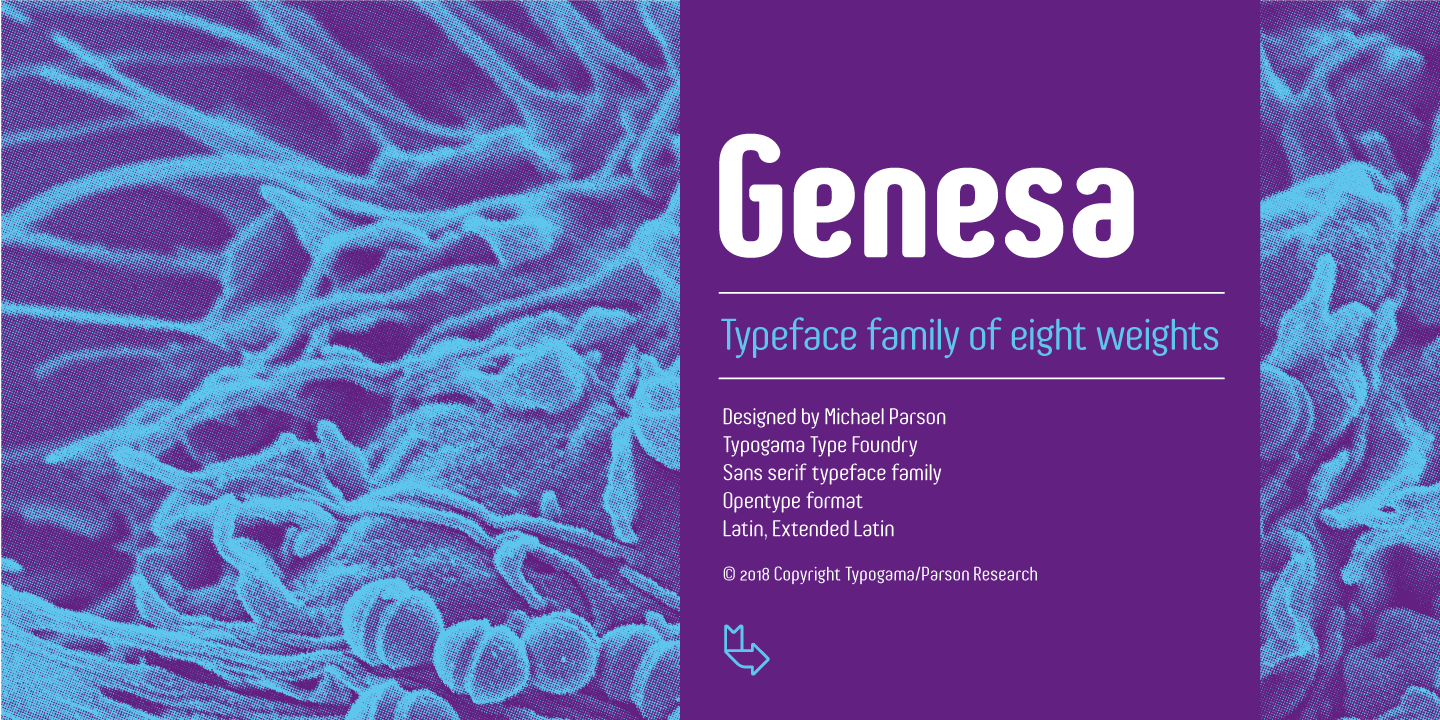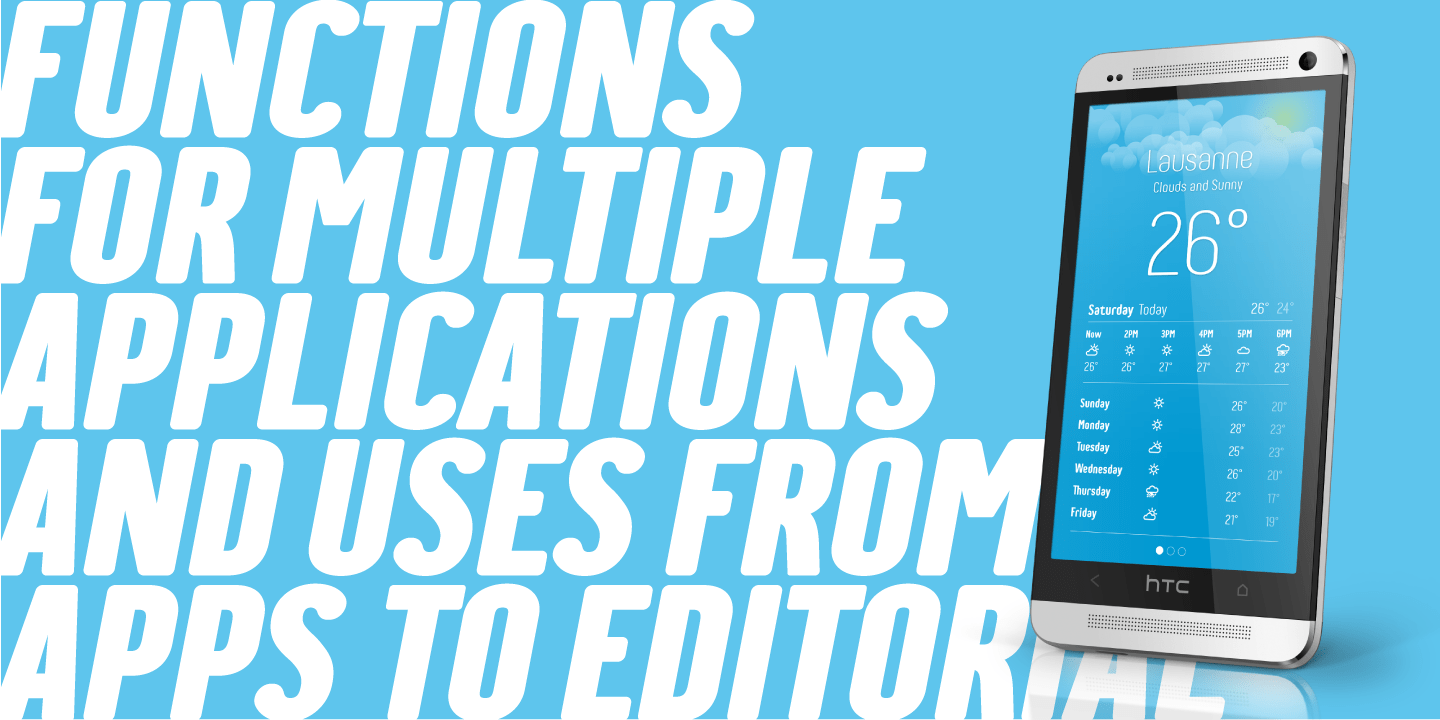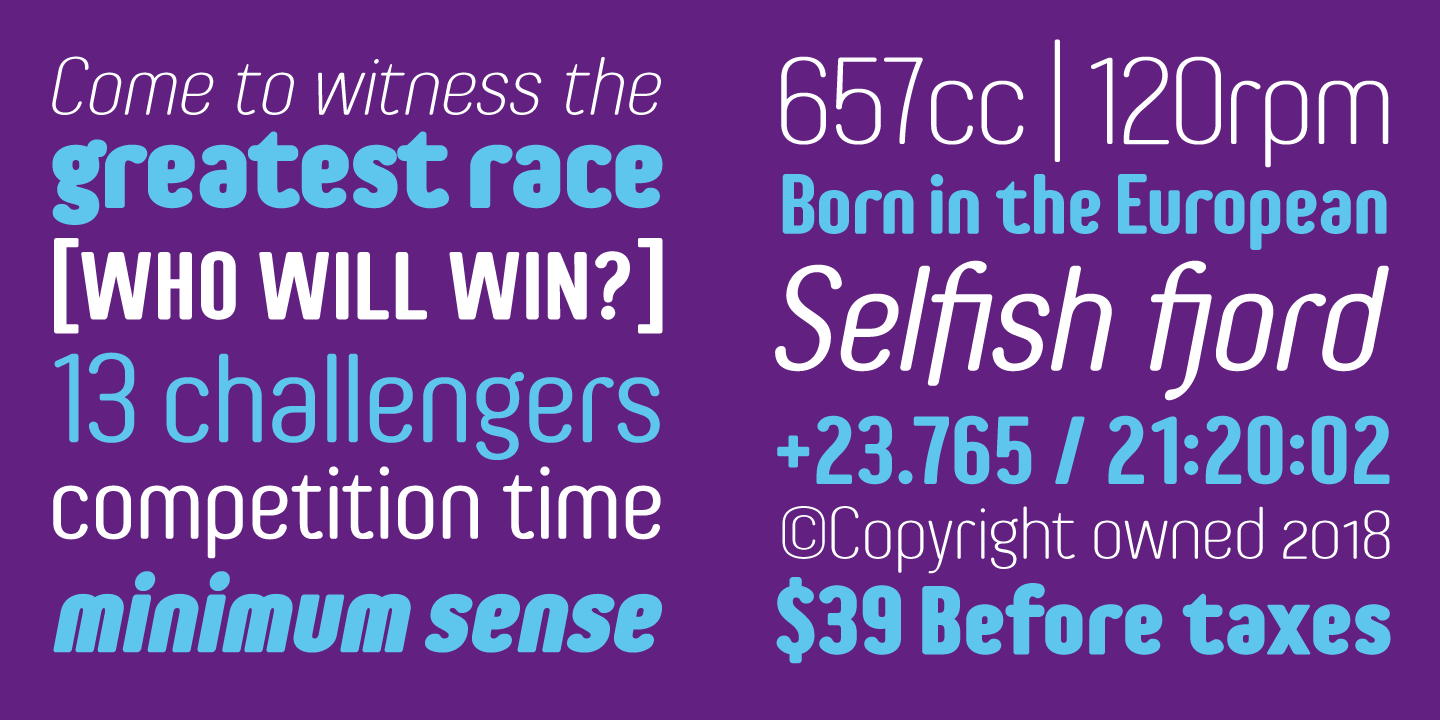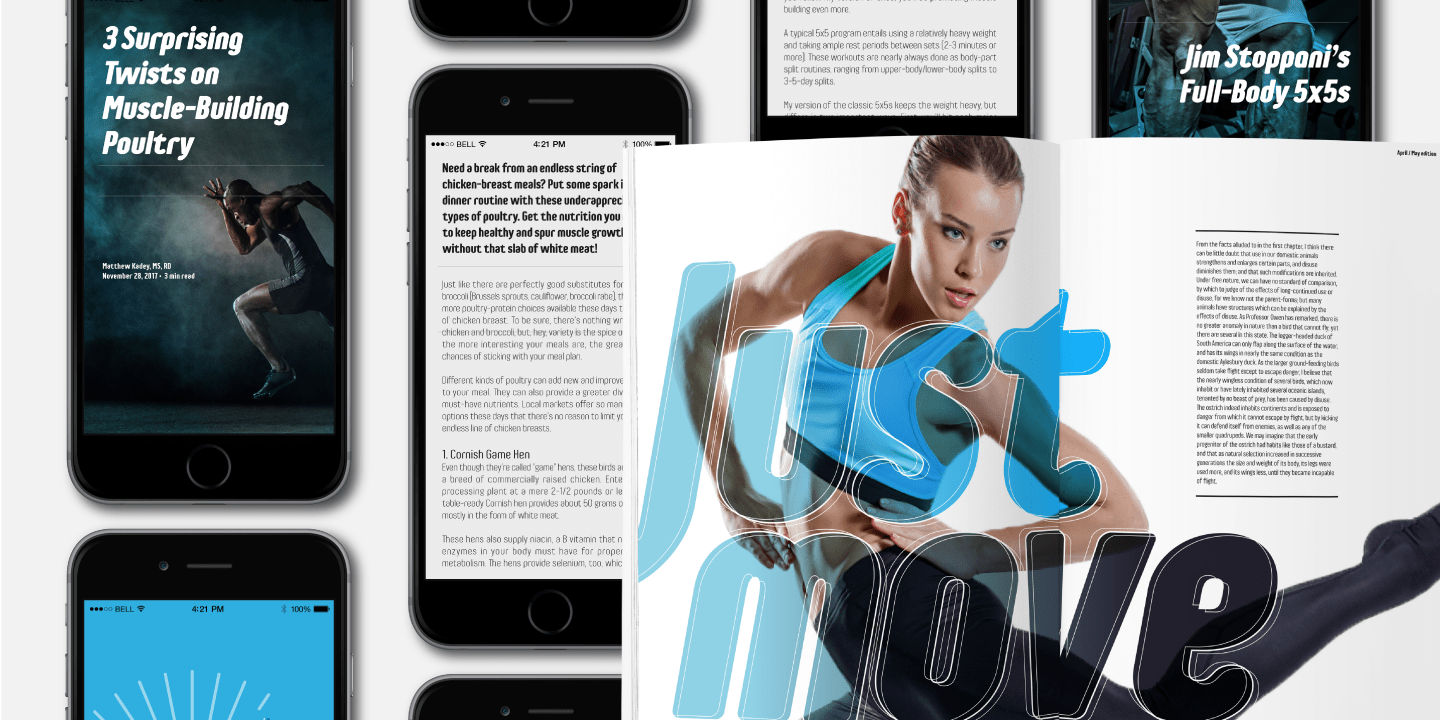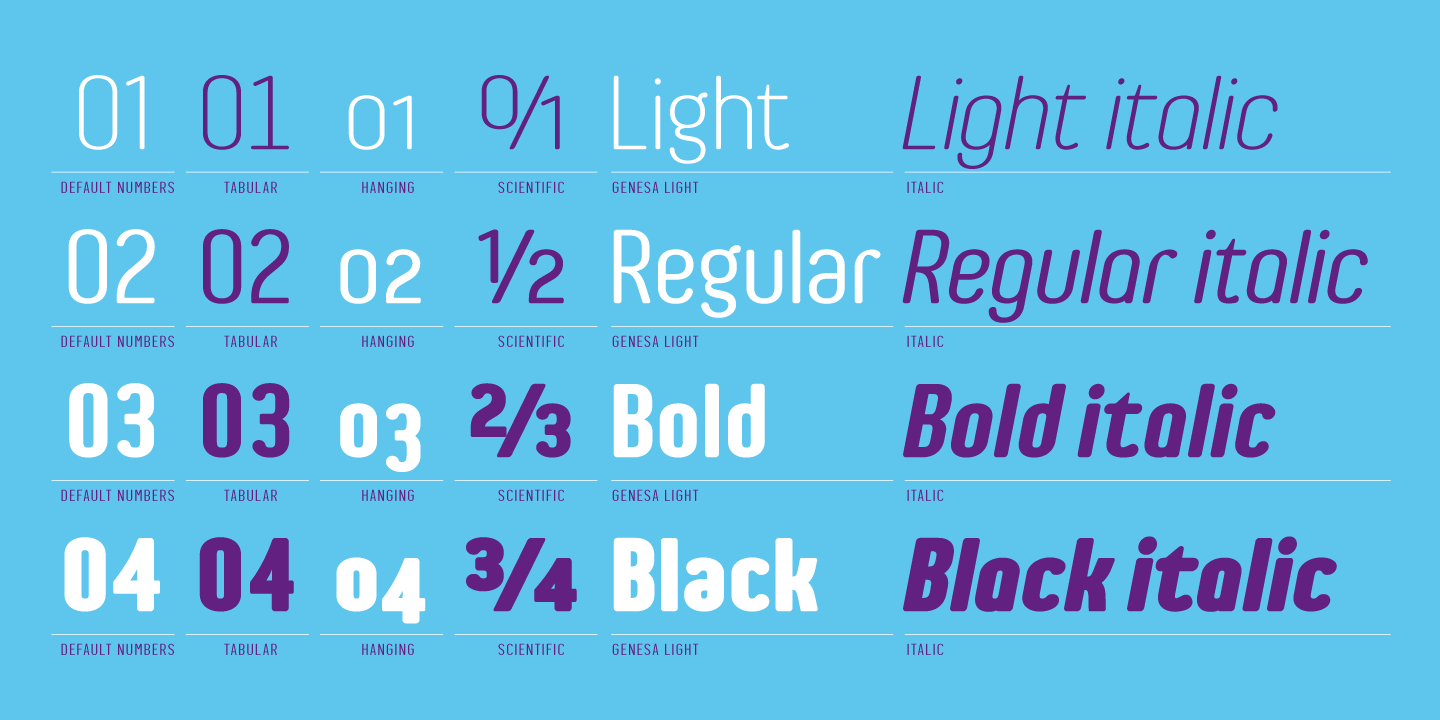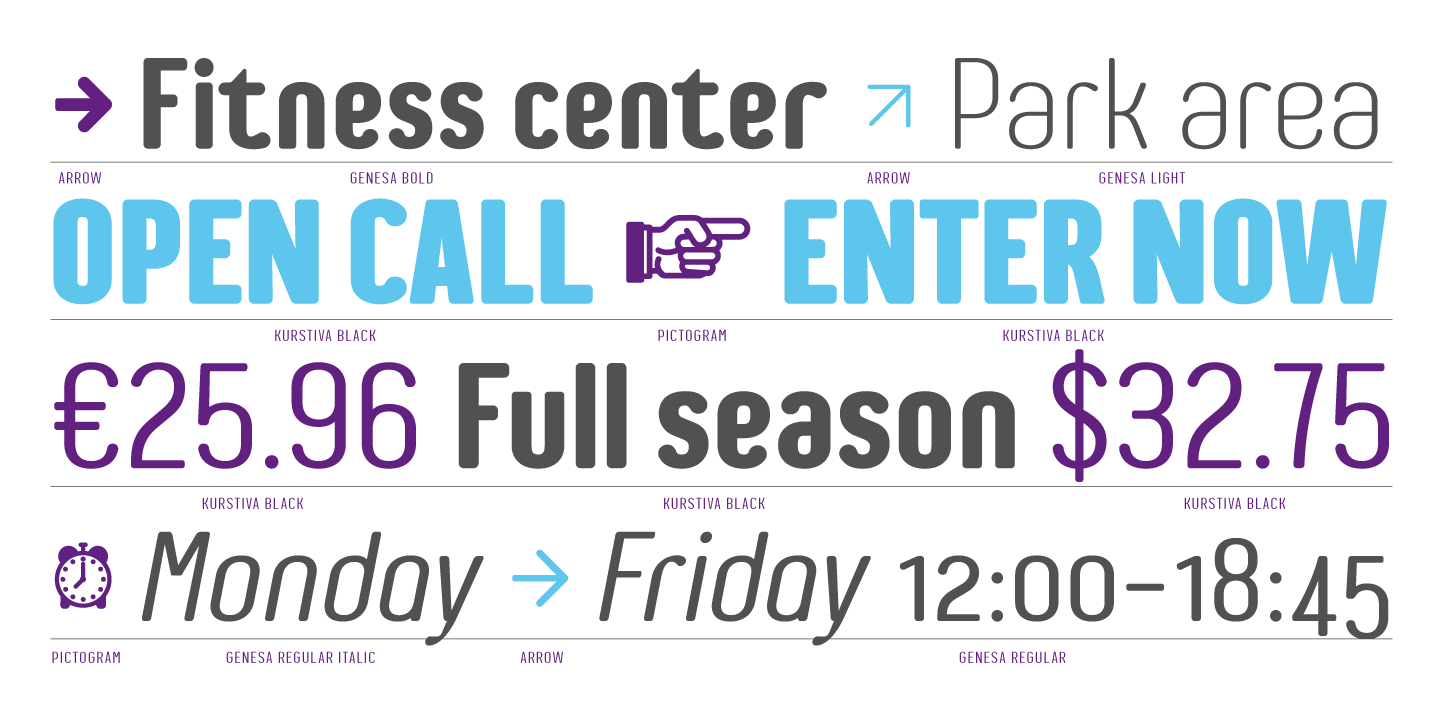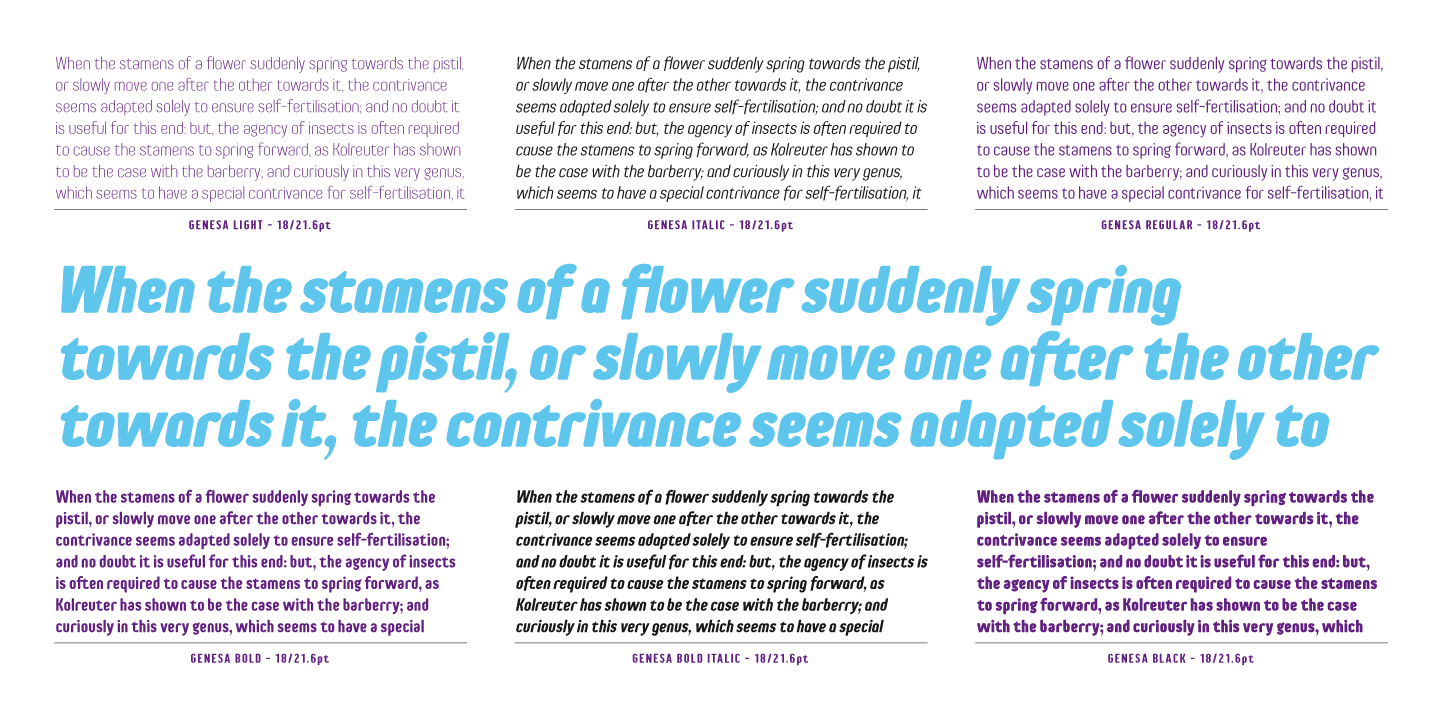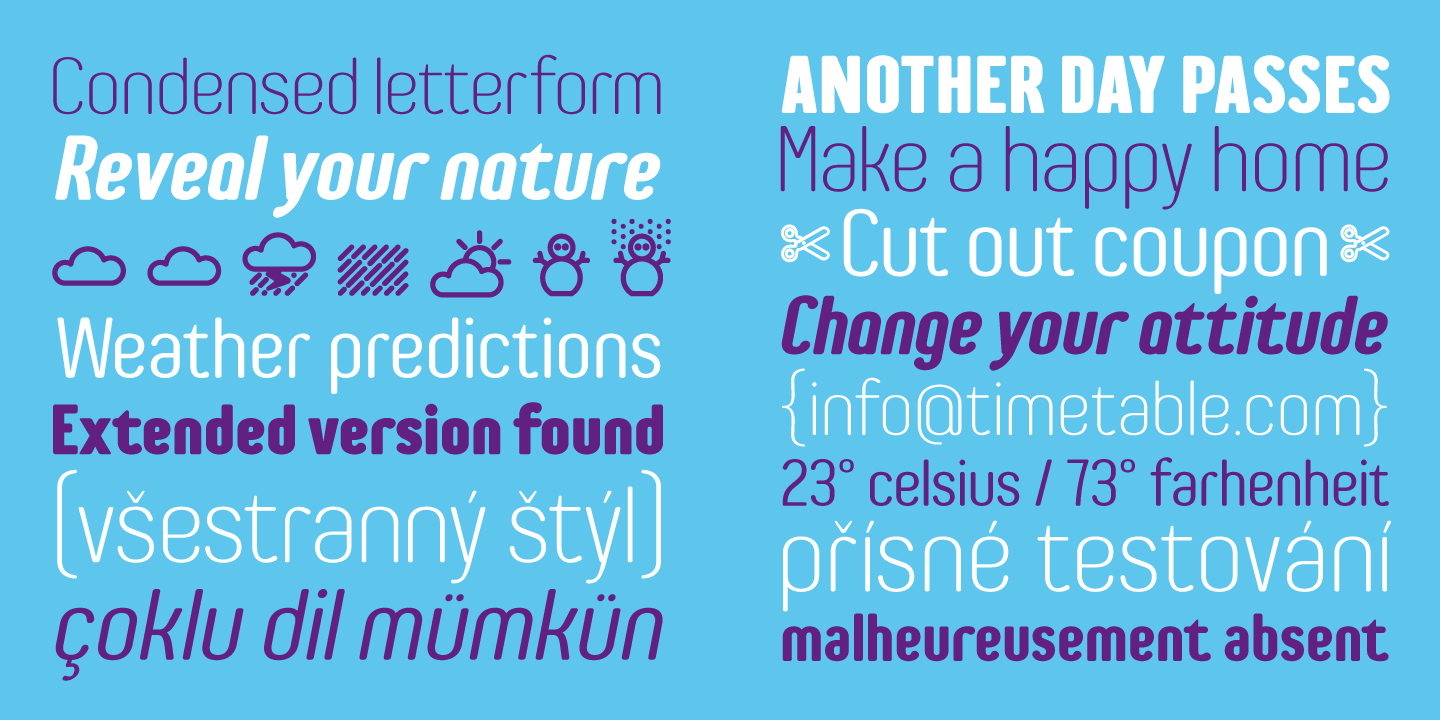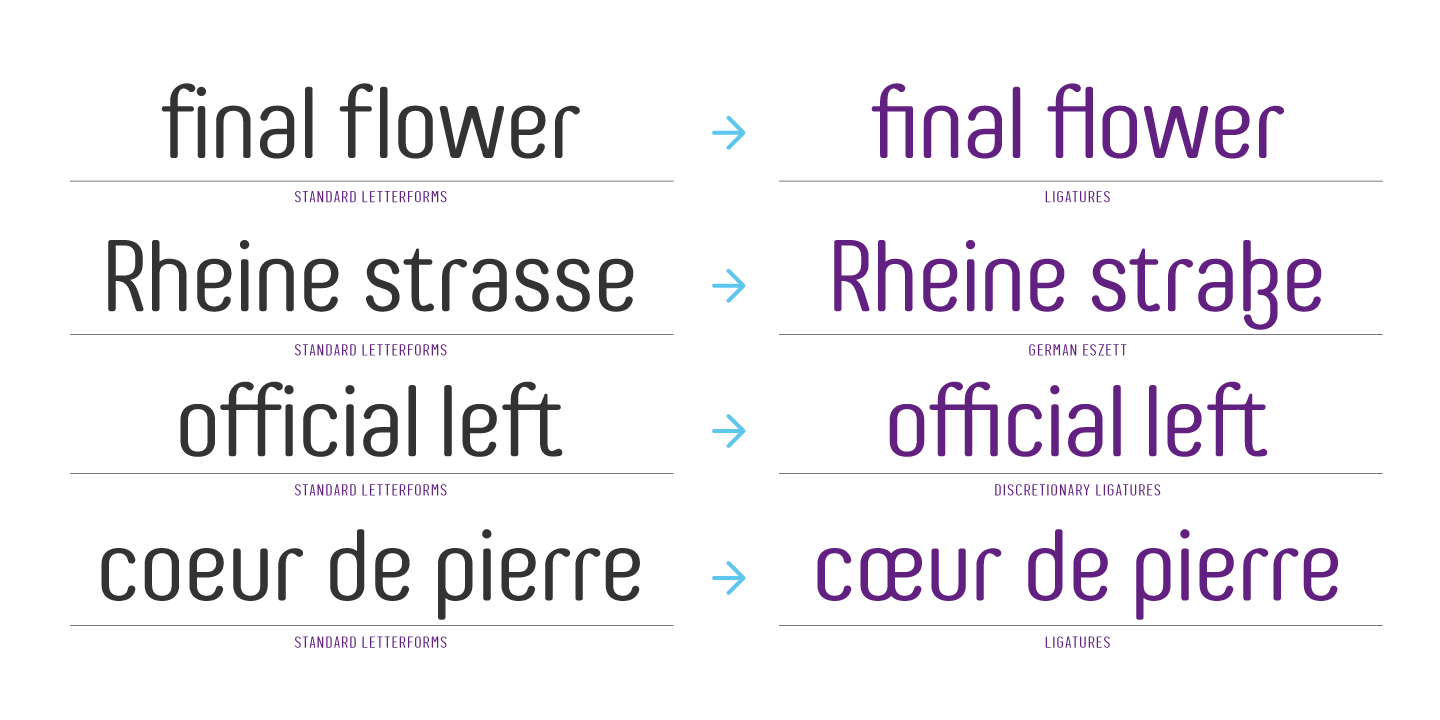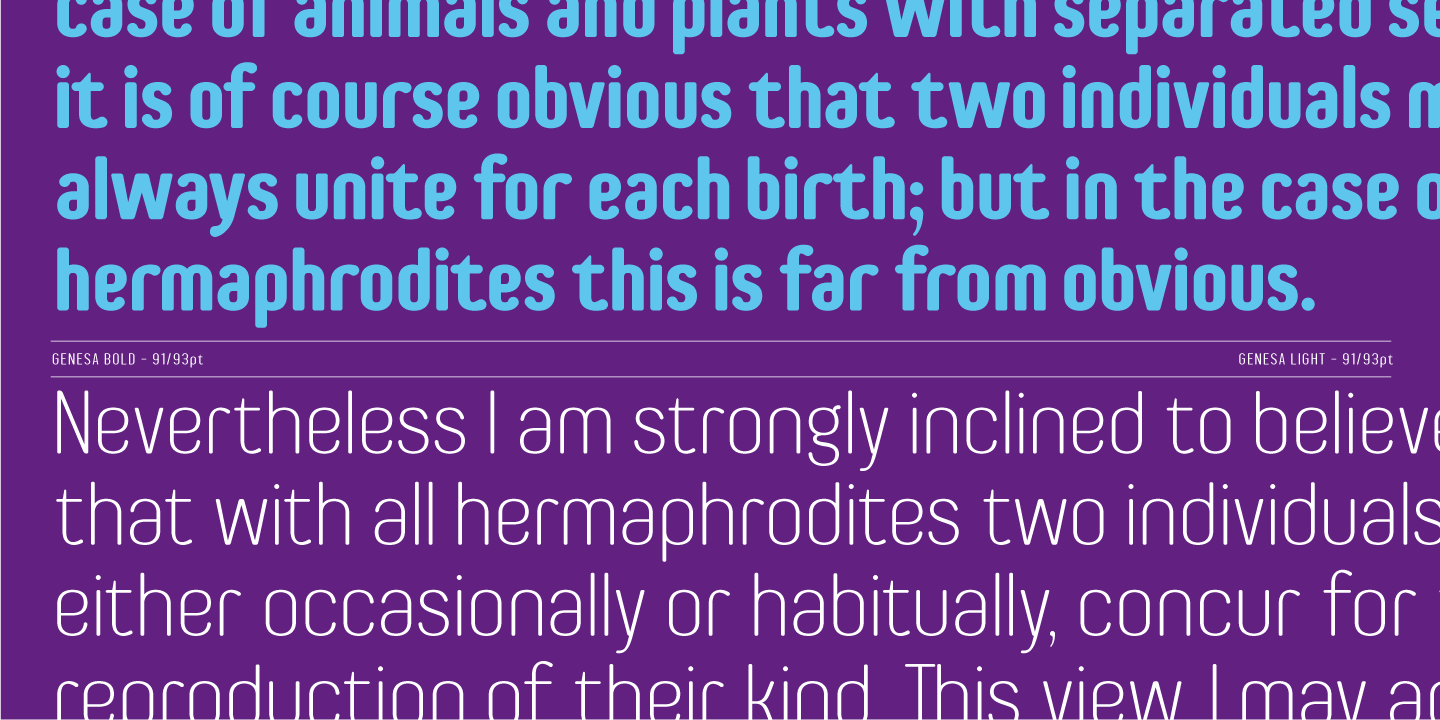
Genesa
The Genesa typeface is a condensed, rounded sans serif typeface with a contemporary styling ideal for editorial or branding design. With it's 4 weights and accompanying italics, this family can be used for large titles or display settings but is equally legible in small sizes for longer passages of text. Genesa combines a strong, vertical constructed style with a softer rounded approach that adds a humanist flavour.
This typeface covers multiple languages through an extensive character set and a wide range of Opentype features that allow various character or numeral choices. A set of over 60 pictograms and arrows are equally features and through their carrying weights, can also be combined seamlessly with any style of the family.